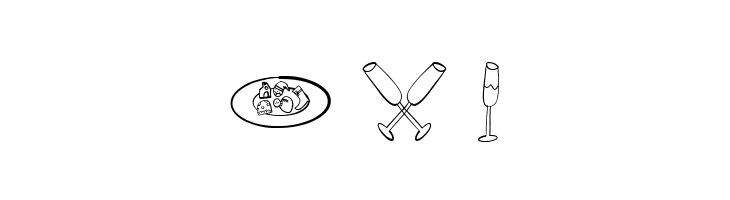
Hand-drawn Christmas doodle icon set.
A bold, hand-drawn font with a textured, doodle-like pattern.
A playful, school-themed handwritten font with doodle-like illustrations.
A bold, distressed font with a textured, stamp-like appearance.
A playful, hand-drawn font with intricate patterns and doodles.
A textured, nature-inspired font with a rustic and organic feel.
A playful, hand-drawn font with a doodle-like, textured style.
A playful, handwritten script font with smooth, connected letters.
A decorative font with camping-themed illustrations embedded in each character.
A bold, handwritten font with a playful and informal style.